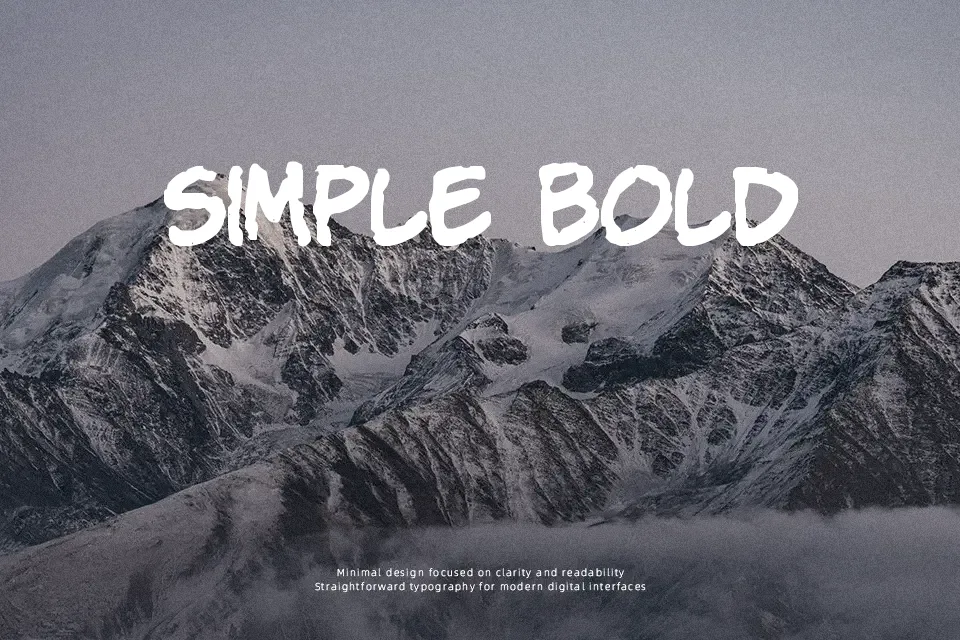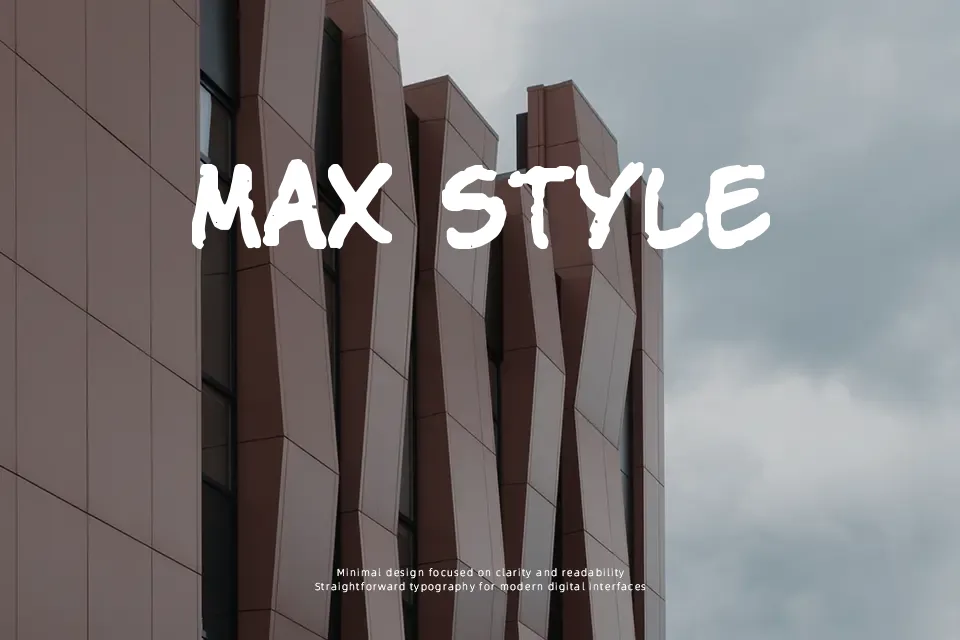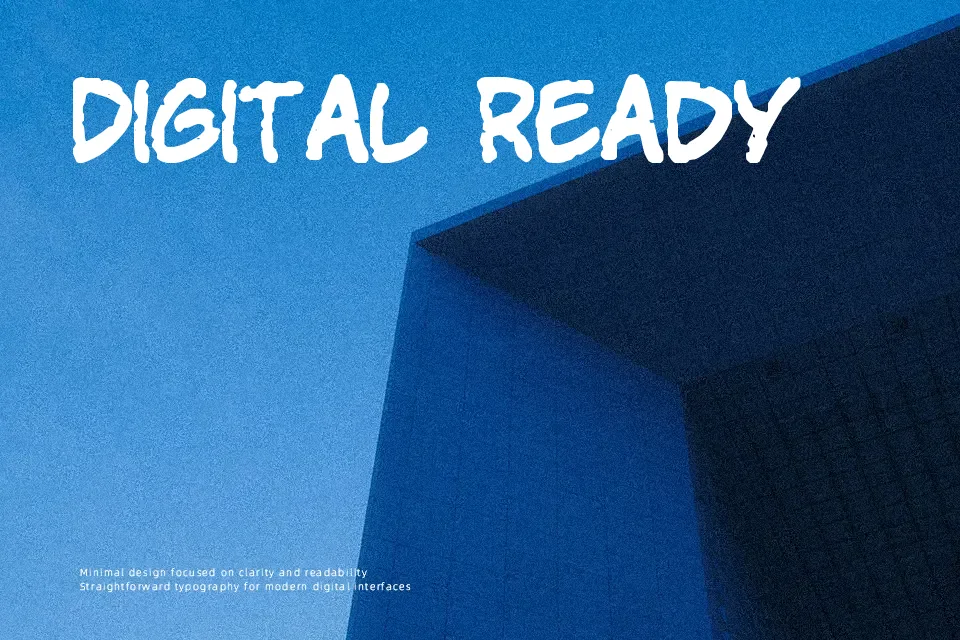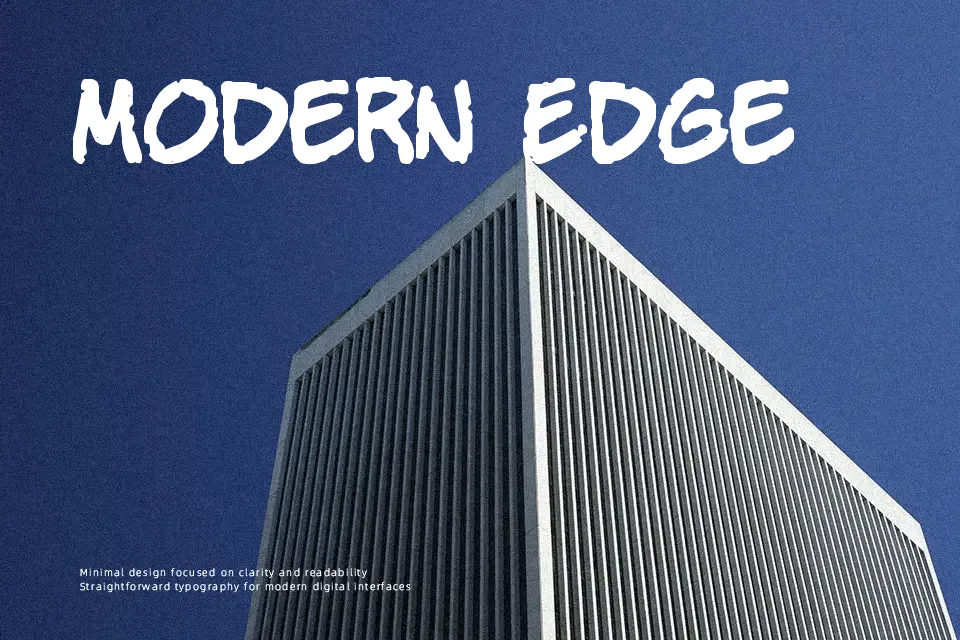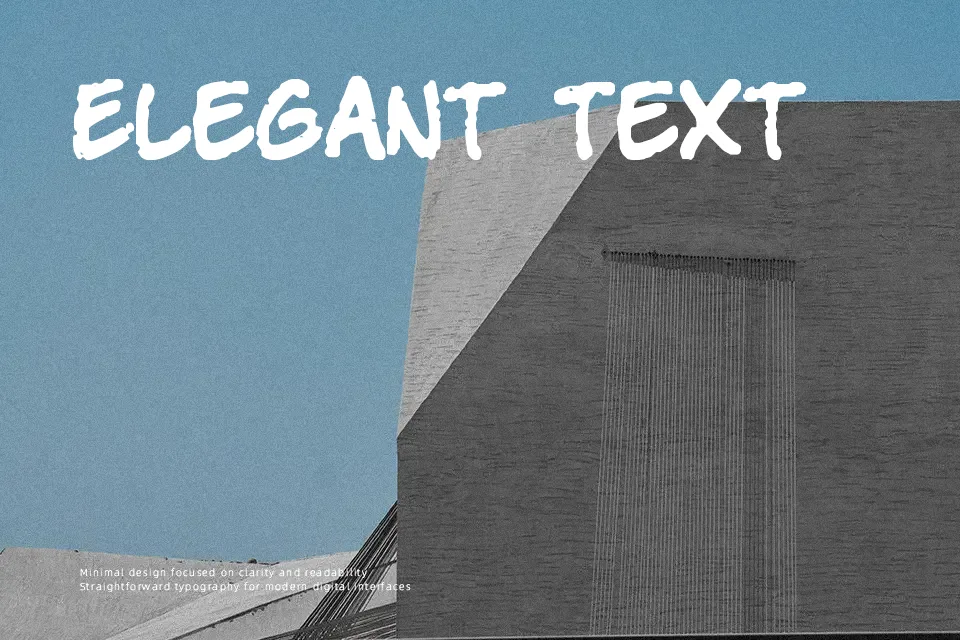
Komika Parch Font
Rough edges, uneven stroke weight, and slightly irregular spacing give Komika Parch a distinctly hand-inked comic feel. The letterforms lean toward a casual, sketch-like structure, echoing traditional comic lettering rather than polished digital type. It works well in comic speech bubbles, indie zines, or playful poster headlines where personality matters more than precision. However, the textured appearance reduces clarity at smaller sizes, making it less practical for long paragraphs or UI text. From a usability standpoint, it shines in expressive, short-form content but quickly feels messy in dense layouts.
– comic speech bubbles and panels
– indie zine covers
– playful poster headlines
– kids-themed graphics
– long paragraph text
– professional business documents
– small-size UI elements
– minimalist branding systems
Perfect for headline, kids, and poster, with a artistic and comic style.